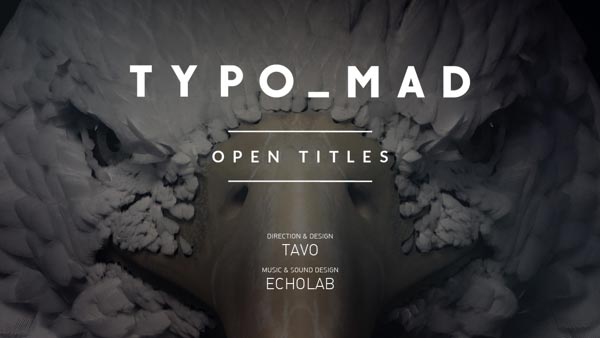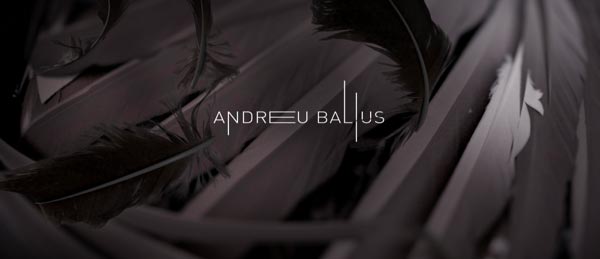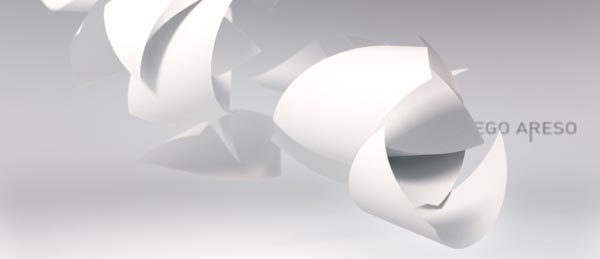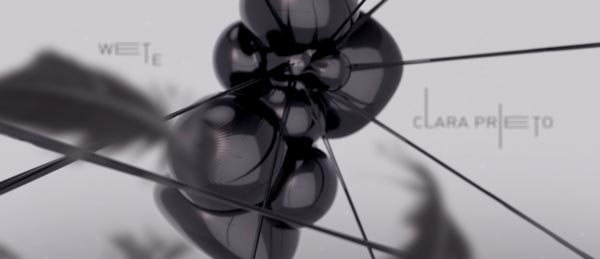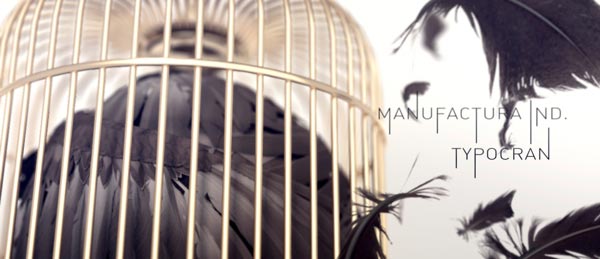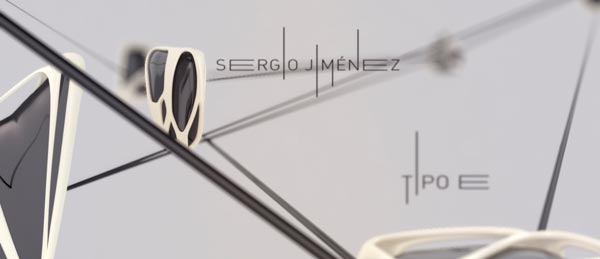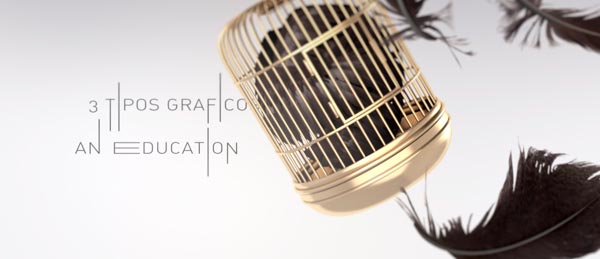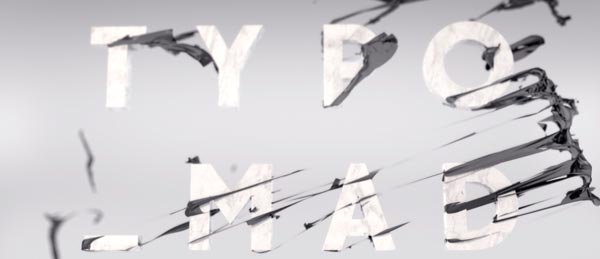
Typomad Open Titles
TypoMad is an event about typography held in Madrid. The Opening Credits have been designed by Tavo Studio with the purpose to capture as sketching on paper how a typography becomes something solid, all through this metaphor of evolution. Abstractly alluding to beziers lines, ink and the definition of a new creation.